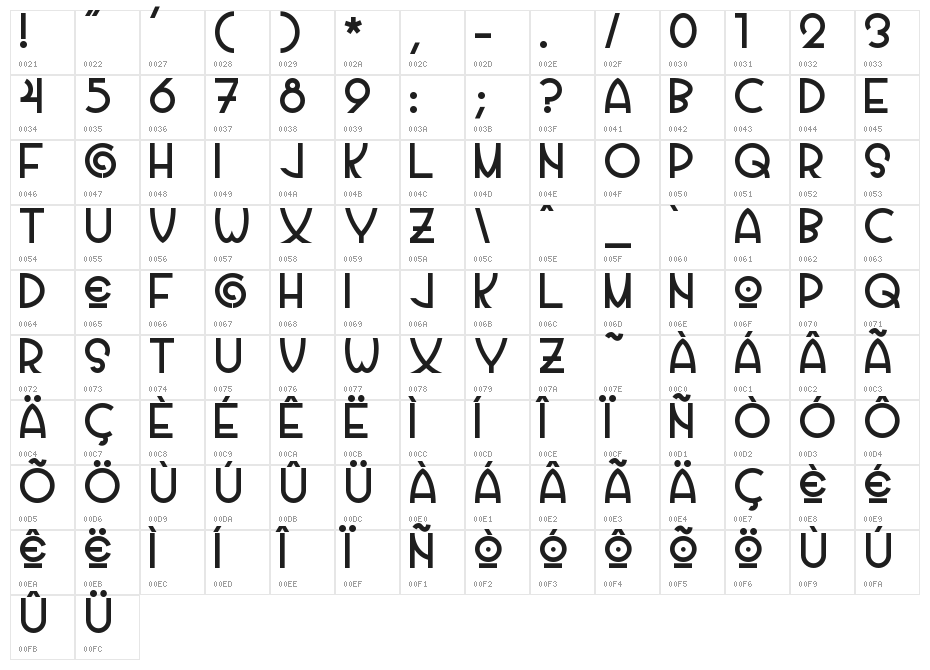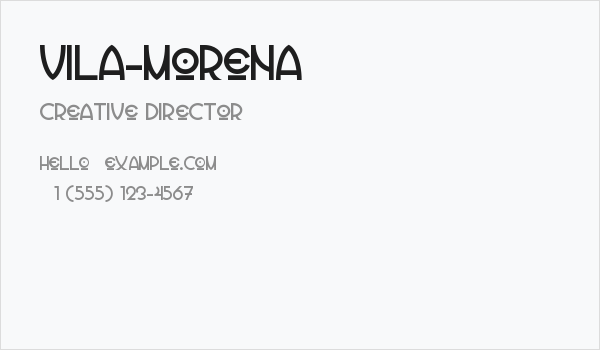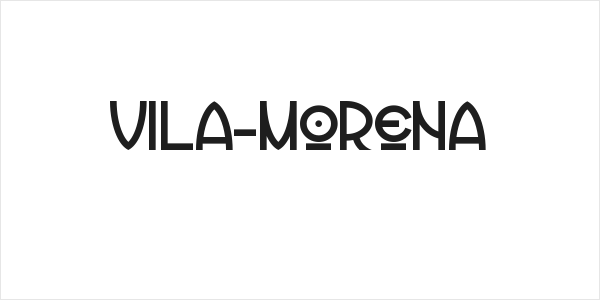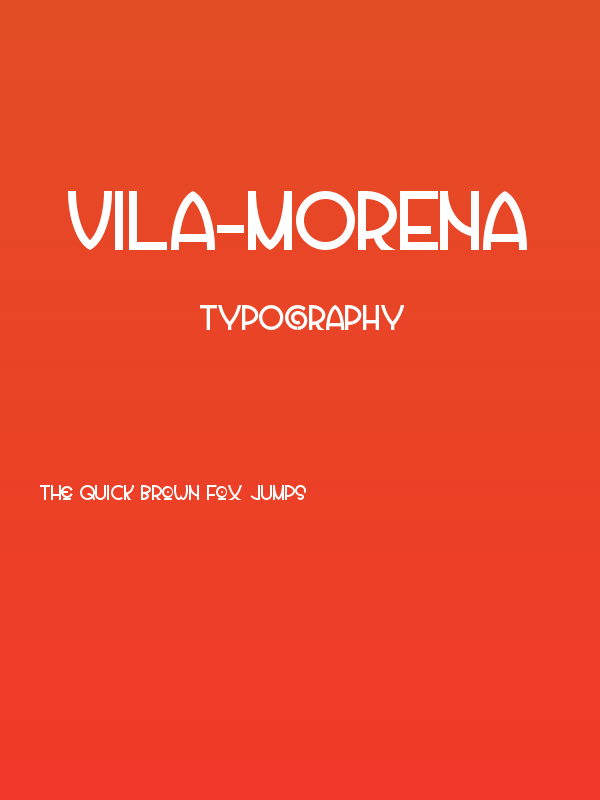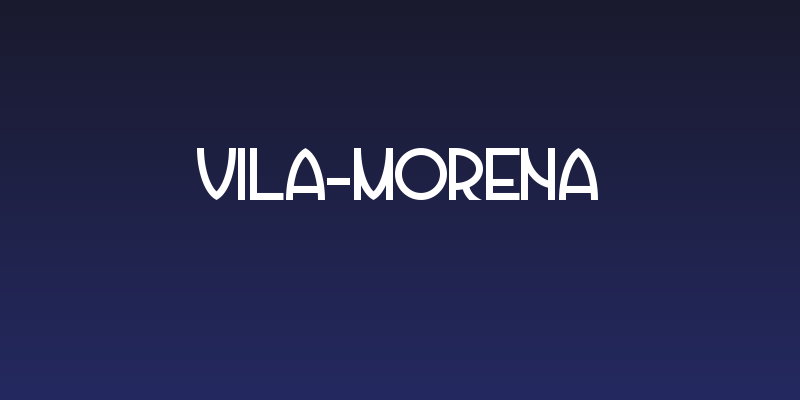
Vila-Morena Font
Vila-Morena Description
This font features a bold and geometric design, characterized by its strong lines and circular elements. The uppercase letters are distinct with unique shapes, particularly noticeable in characters like 'G' and 'O' which incorporate spirals and circles. The lowercase letters maintain a consistent style, echoing the geometric theme. Numbers are bold and clear, with a modern twist that aligns with the overall design. Special characters are creatively integrated, adding to the font's decorative appeal. The font's style is both modern and artistic, making it suitable for eye-catching designs.
| Proposed Projects | Ideal for branding, poster design, and any project requiring a modern, artistic touch. |